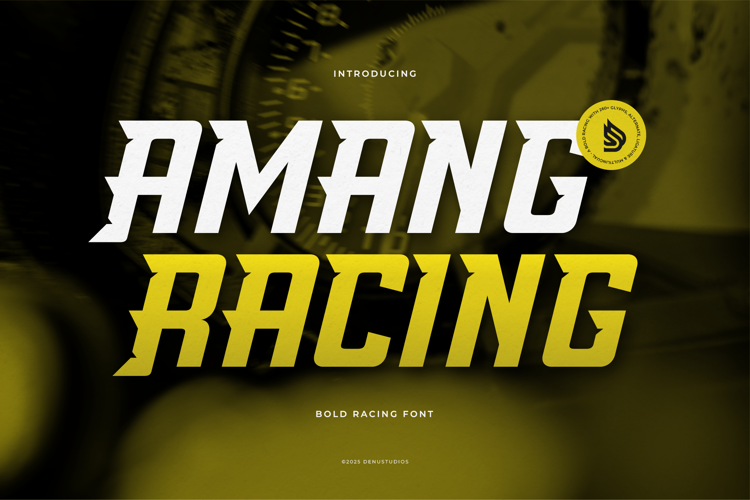
Amang Racing Font
About Amang Racing Font
Amang Racing | Bold Racing Font product packaging, mugs, quotes, posters, shopping bags, t-shirts, book covers, name card, invitation cards, greeting cards, label, photography, watermark, special events, and all your other lovely projects that need a Bold Racing Font taste.